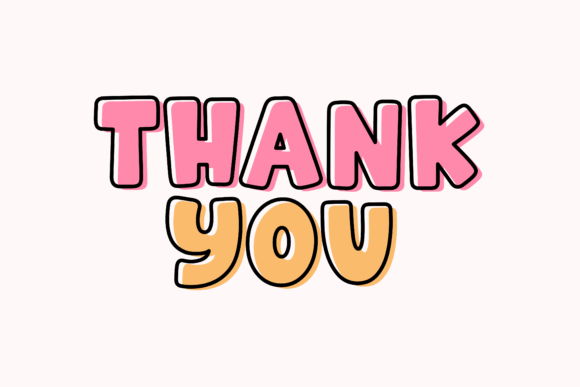
Hello Smile is a unique font design that creatively blends two distinct styles: bold, blocky, and rounded elements with elegant, flowing lines. This combination results in a playful and friendly vibe, making it perfect for casual and fun designs. The dynamic and eye-catching effect of this “font duo” style is ideal for conveying warmth, friendliness, and creativity. It’s especially popular in T Shirt, social media graphics, and other playful typography-based designs.